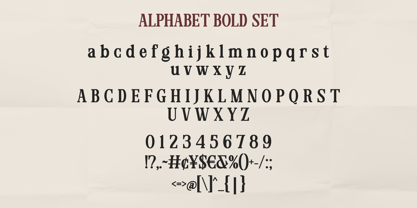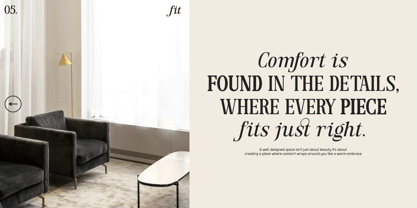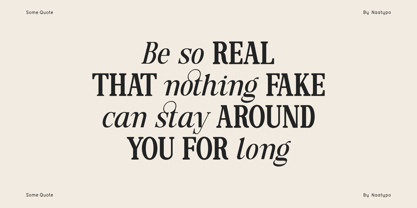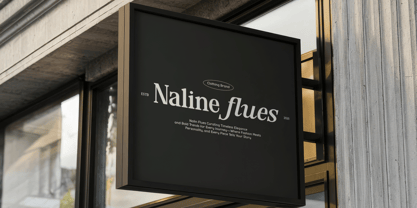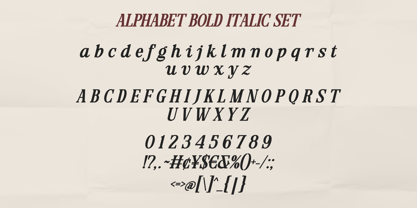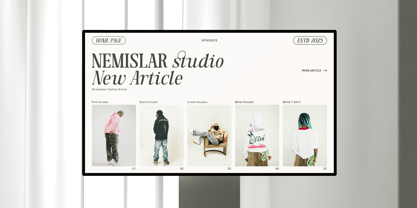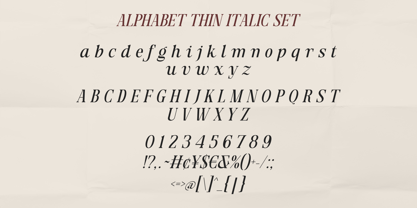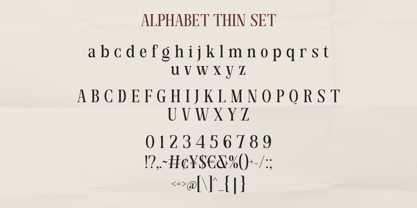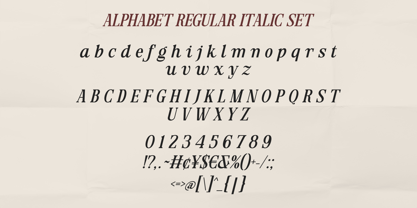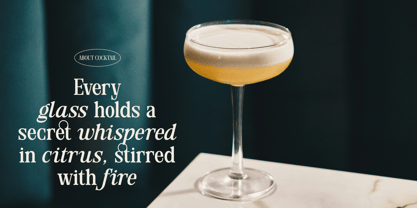
Maetinlla
The Maetinlla Font Family was designed by Kurnia Elis Setyorini and published by Naatypo. Maetinlla contains 6 styles and family package options.
This majestic typeface adds a elegant twist to any design. A passionate curve gives a touch of beauty to this font. Maetinlla comes in a modern style featuring 6 straight & angled, making it easy to adapt to your design. Its filled with subtle quirks while still maintaining its graceful shapes. You will get classy, elegant, and certainly unique logos with this font.